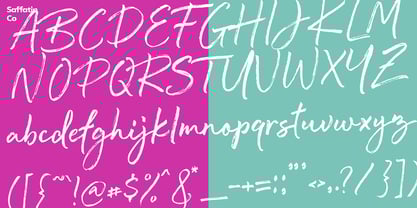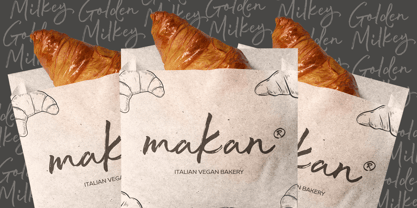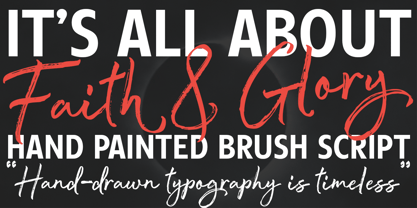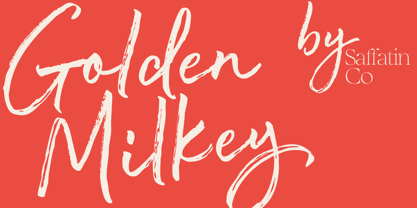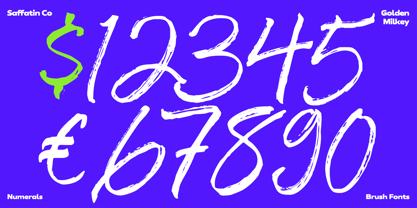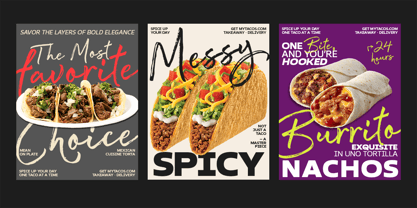
Golden Milkey Brush
by Saffatin.co
The Golden Milkey Brush Font Family was designed by Sarwo Edi and published by Saffatin.co. Golden Milkey Brush contains 1 styles. More about this family
Golden Milkey is a bold yet graceful brush font, capturing the essence of hand-painted lettering while offering a modern, versatile appeal. Ideal for creators aiming to make their words shine, Golden Milkey effortlessly blends playful curves with organic strokes, infusing each project with a personal and inviting touch.
It excels in branding, packaging, social media posts, invitations, and Print-on-Demand products, turning simple text into striking statements. The font's smooth flow and natural brush texture inspire creativity and charm, making it an essential choice for designers who prioritize style alongside readability.
Whether you are designing a cozy cafe logo, a whimsical quote print, or engaging digital content, Golden Milkey introduces a touch of elegance and authenticity that ensures your design stands out. With robust features and multilingual support, it serves as your creative partner, perfect for projects that require a heartfelt, handcrafted influence.
Designers: Sarwo Edi
Foundry: Saffatin.co